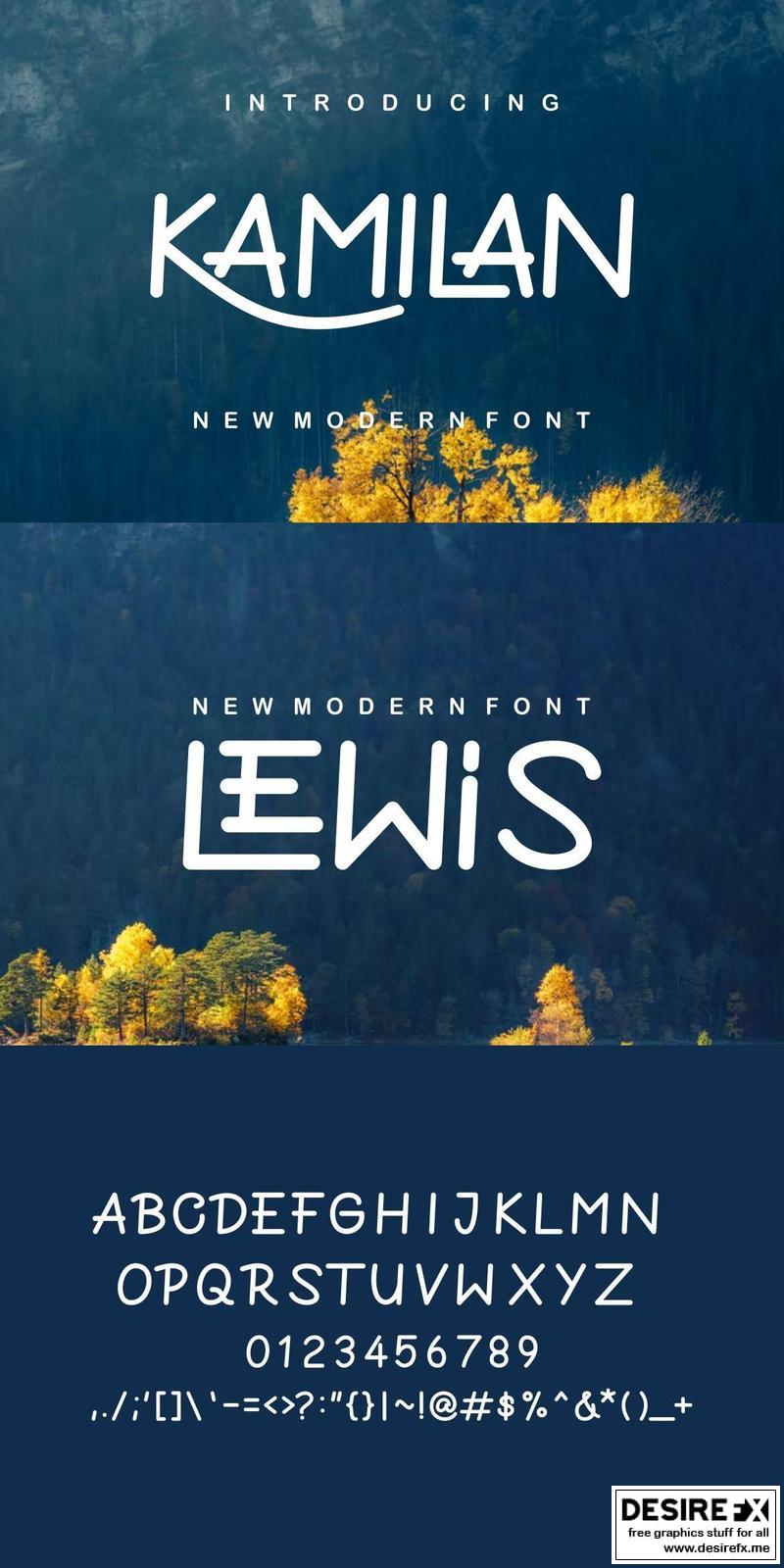
Kamilan Font UURTJEU
Introducing our new product Kamilan Font – Modern Font
Kamilan Font– Modern Font is a bold and authentic display font. The font is suitable for any branding project like logo, t-shirt printing, esport, and many more. outstanding in a wide range of contexts.
- Uppercase